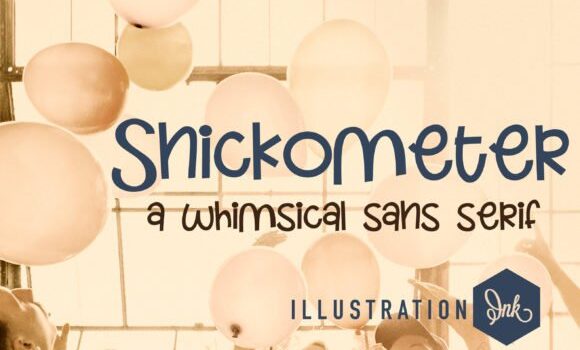
snickometer
Snickometer Font – Free Download Introduction to Snickometer Font Snickometer is a chic, slim and sweet sans serif font. 📸 Preview Gallery 6 images 📌 Product Name Snickometer Font 👤 Author Illustration Ink 📂 Category Explore ⬇️ Download Snickometer Font